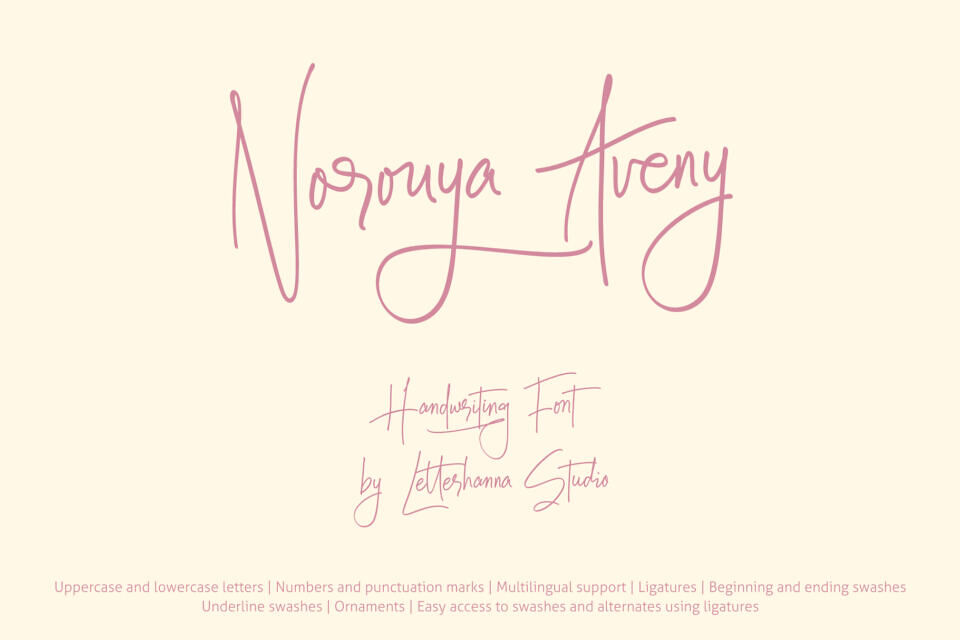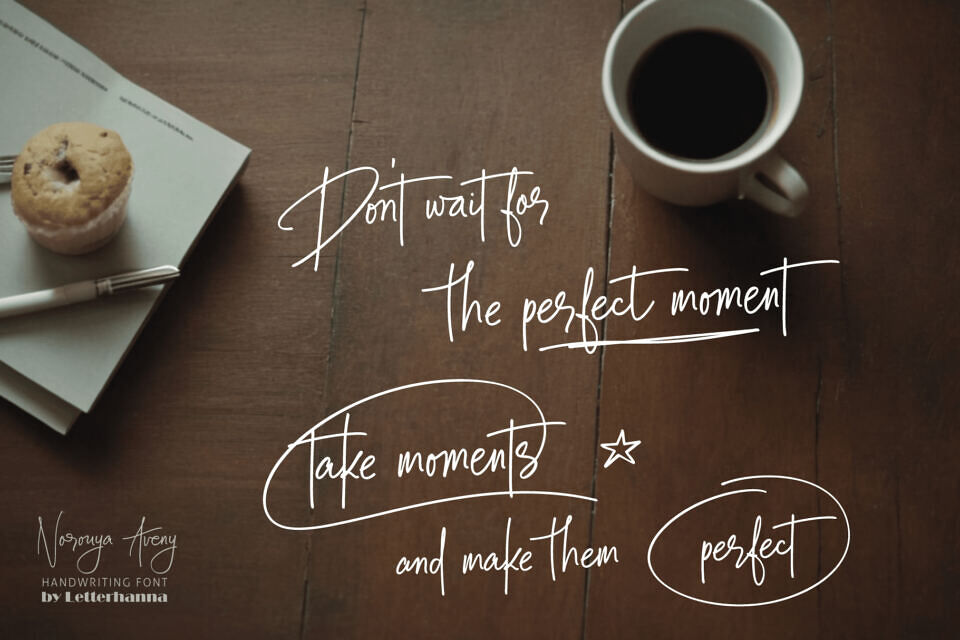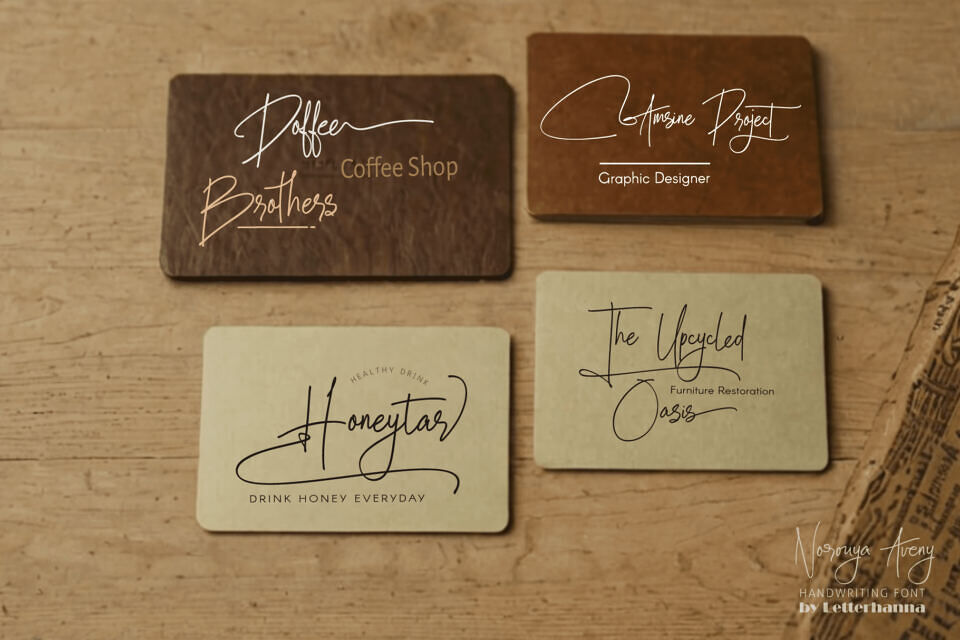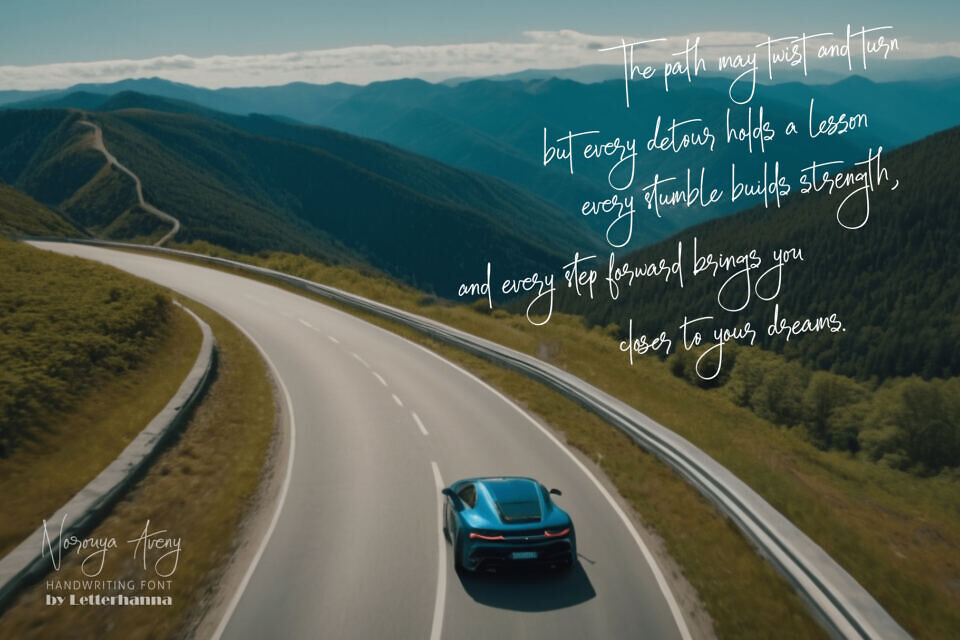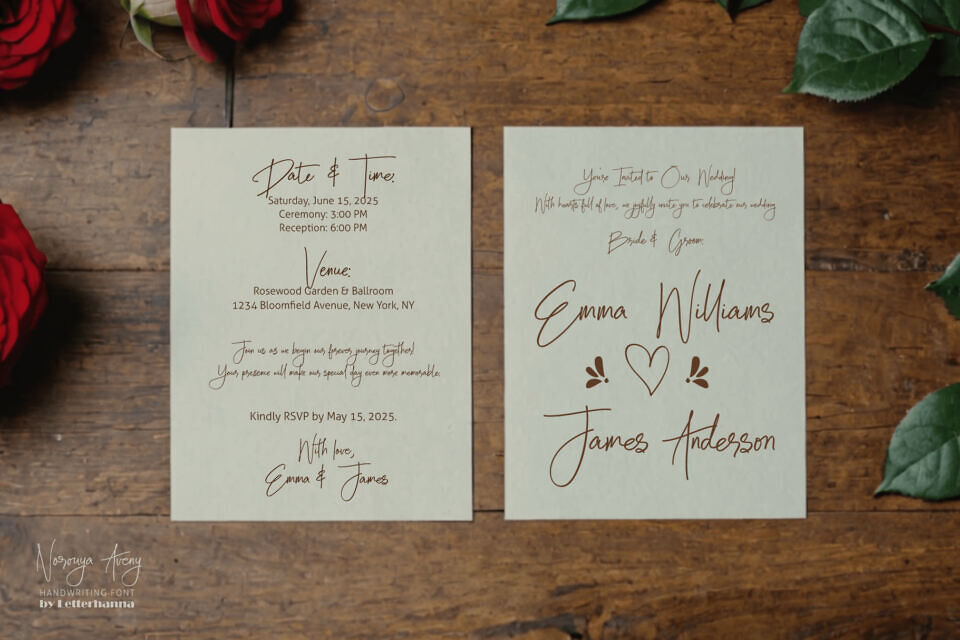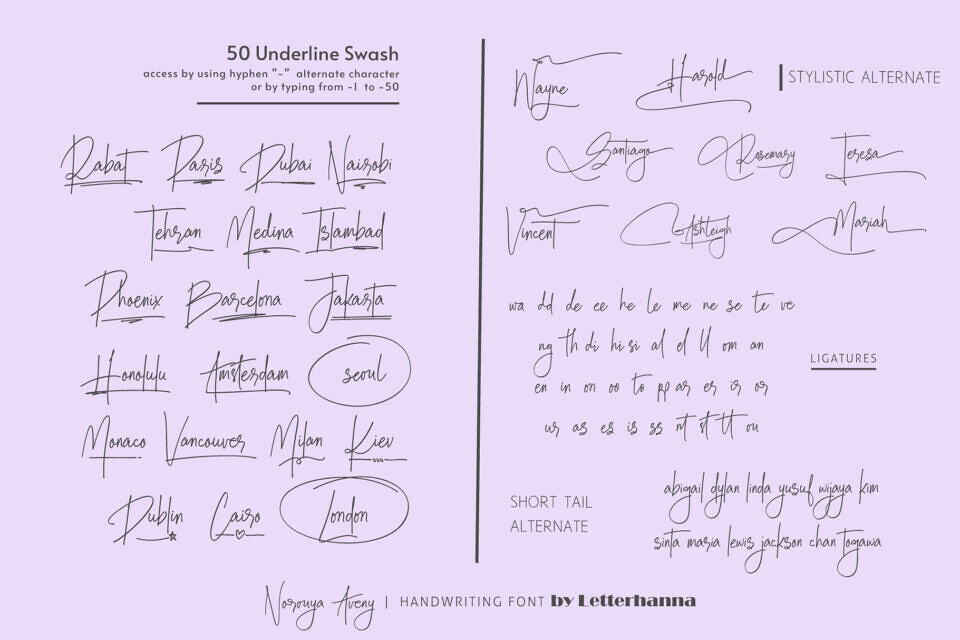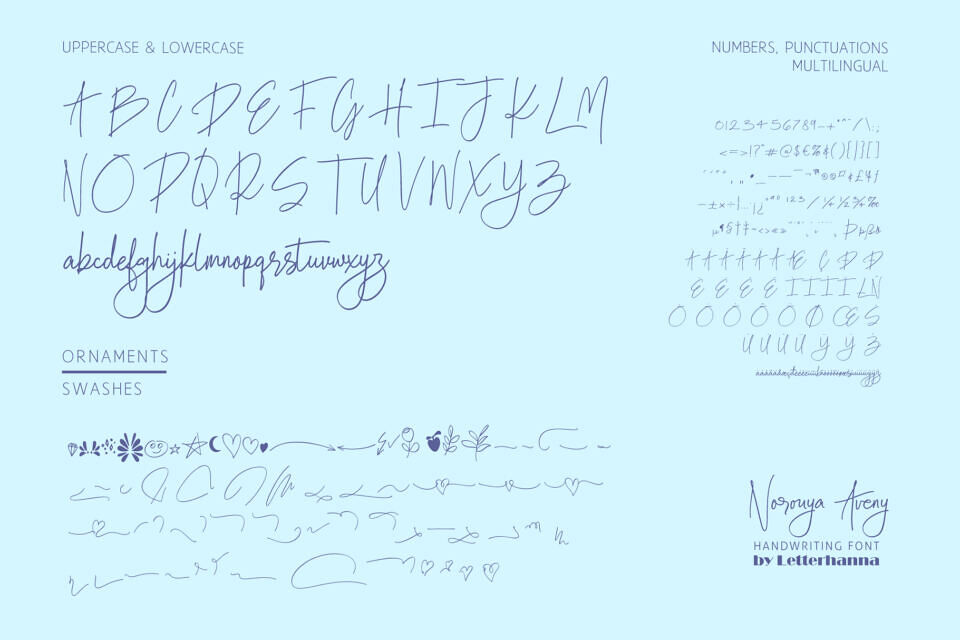
Introducing Norouya Aveny – a charming new script font that brings elegance and personality to every letter you type. With its graceful handwritten strokes, this font is designed to give your work a custom, crafted feel — perfect for branding, invitations, packaging, social media, and anything that needs a stylish personal touch.
What makes Norouya Aveny truly shine is its rich set of stylistic alternates, fluid swashes, and unique ligatures that let you mix and match for endless creative combinations. Whether you’re designing a wedding logo or a bold Instagram post, Norouya Aveny will make every word look effortlessly beautiful.